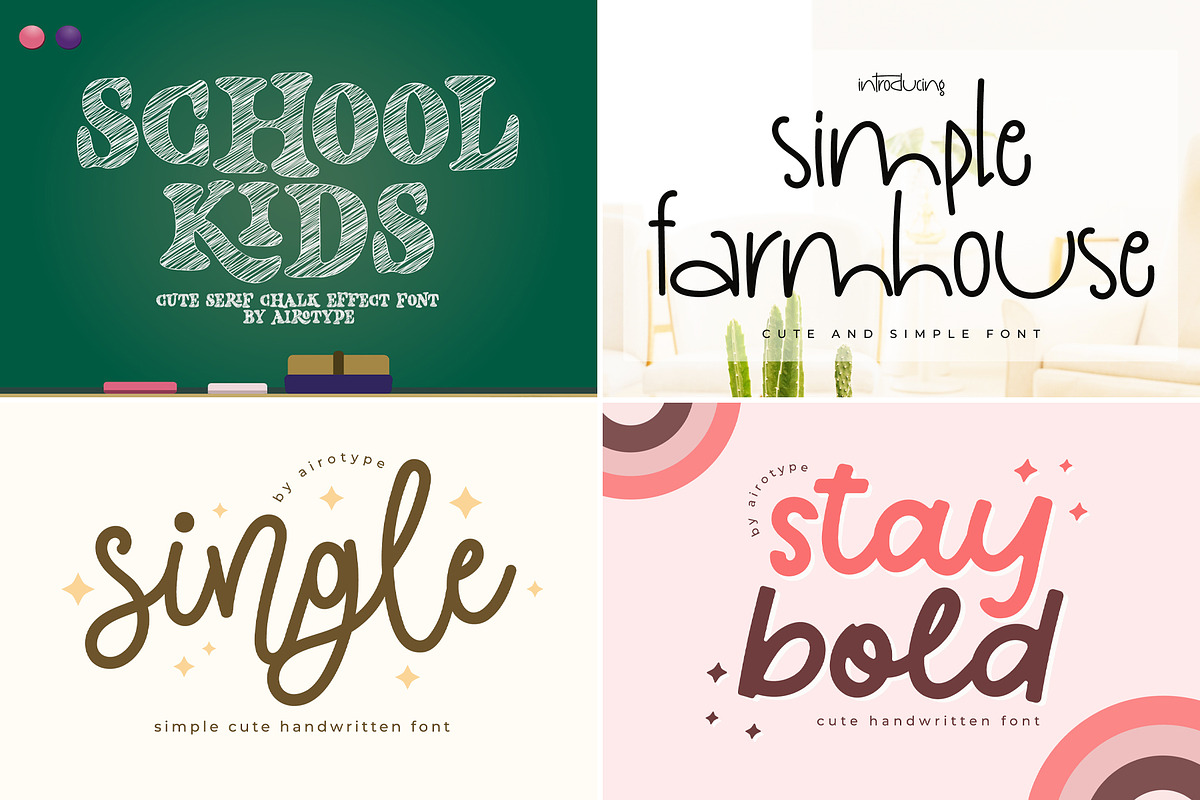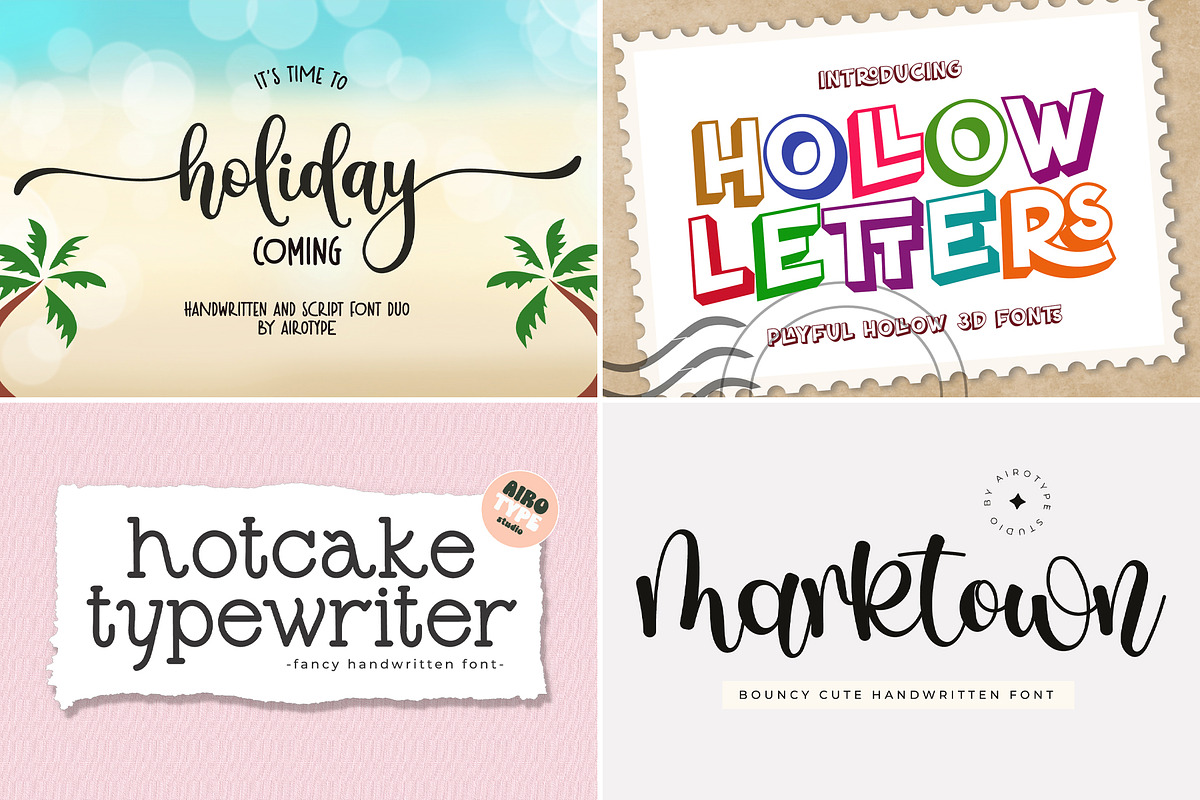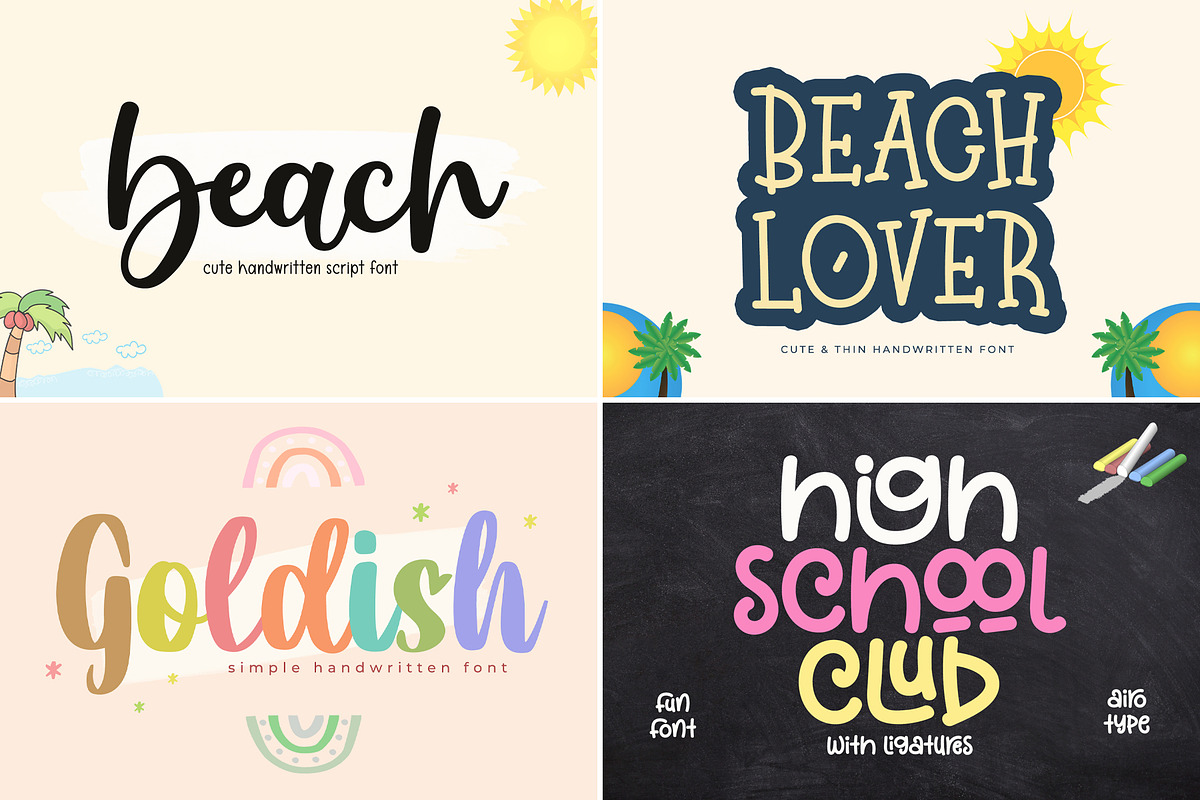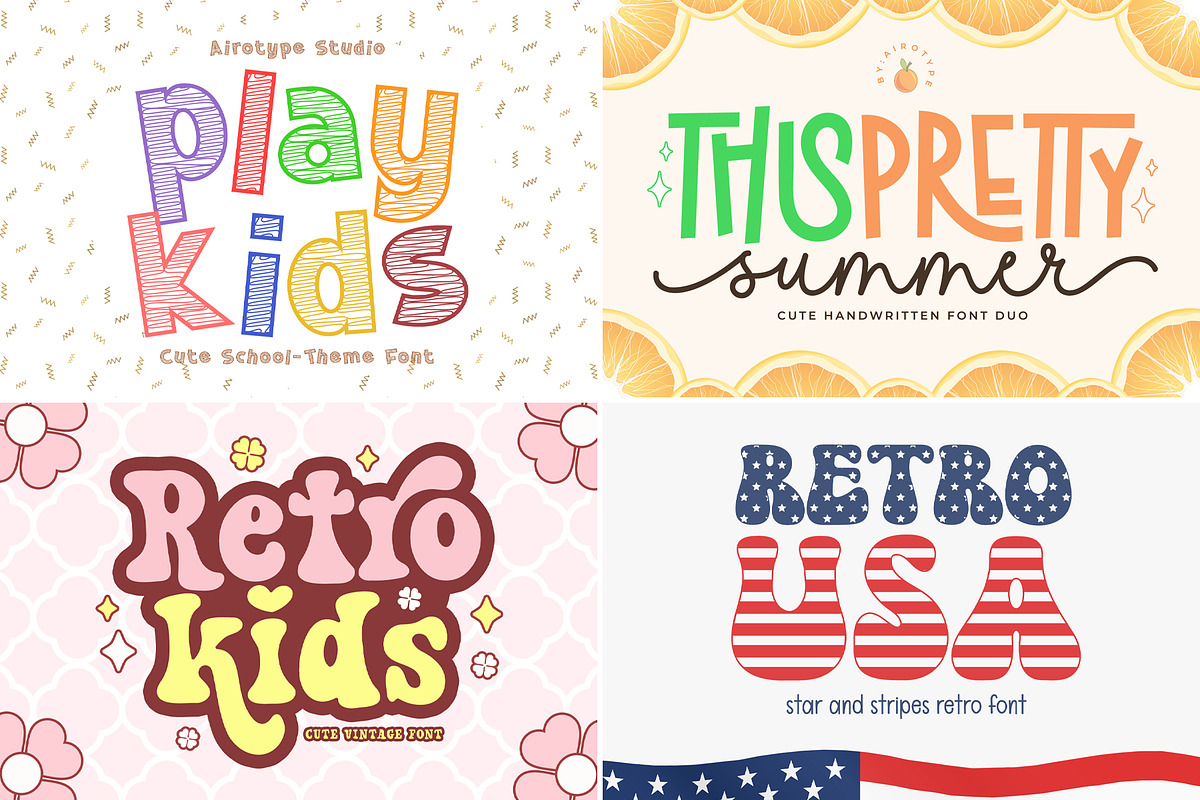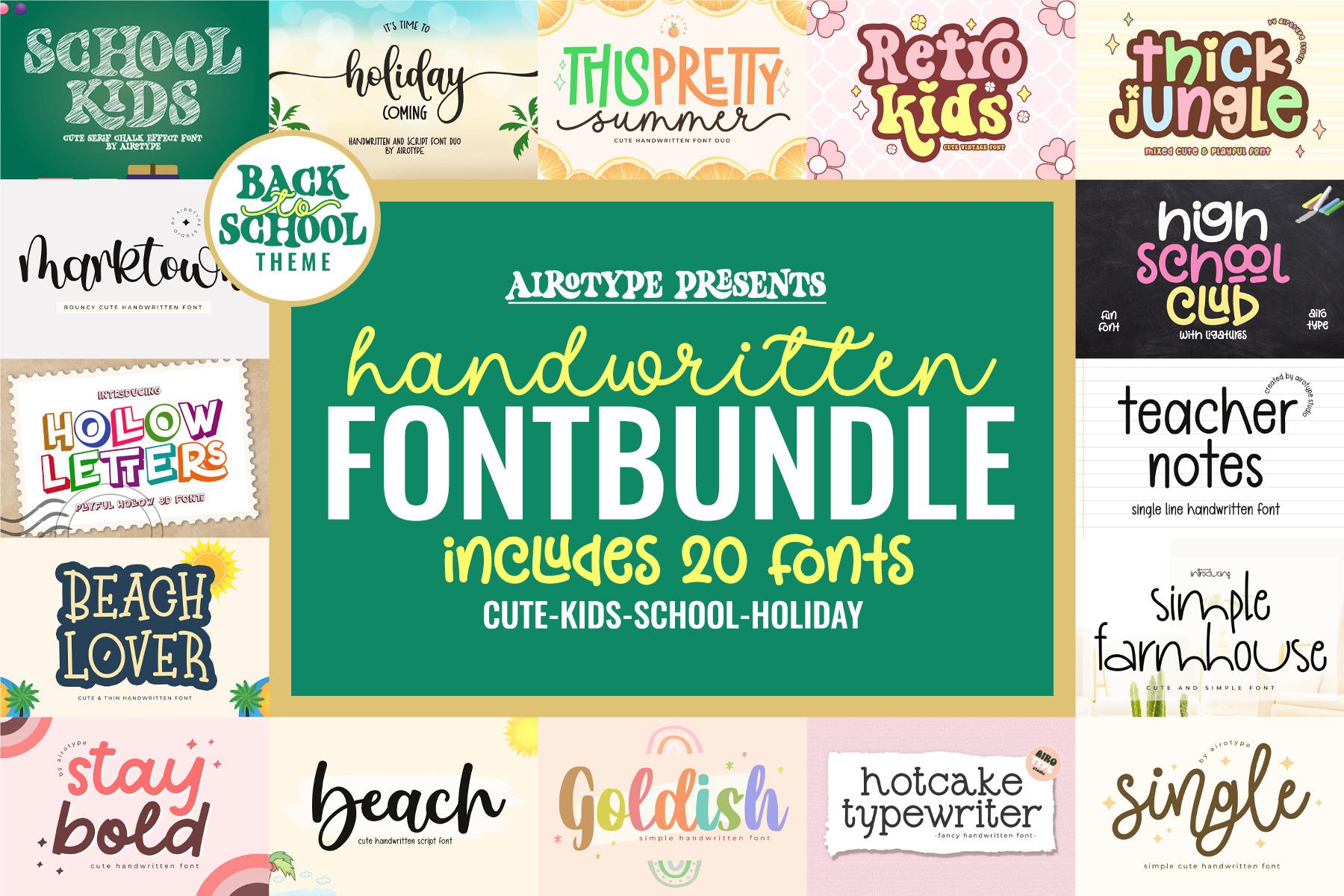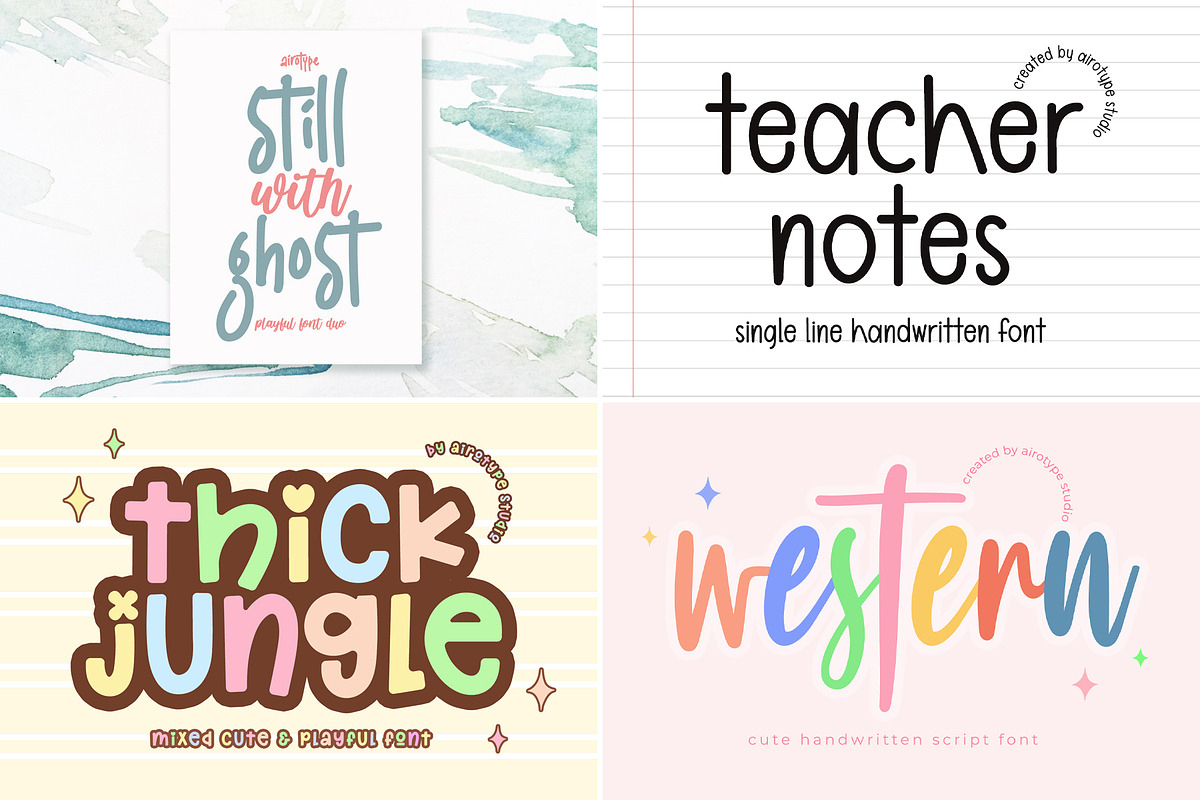
Handwritten Font Bundle | 20 Fonts
This Font Bundle is the bundle of 20 display and handwritten font from Airotype. This is special font bundle for summer holiday, kids, and back to school.
Fonts in this bundles are fun and cute with some types, from handwriting, display, retro, serif, and script.
Fonts included in this bundle are:
- Hollow Letters
- Still with Ghost
- Simple Farmhouse
- Play Kids
- Holiday Coming
- HotcakeTypewriter
- Goldish
- Teacher Notes
- Western
- Beach Lover
- Thick Jungle
- Marktown
- Beach
- High School Club
- Pretty Summer
- Retro USA
- School Kids
- Retro Kids
- Single
- Stay Bold